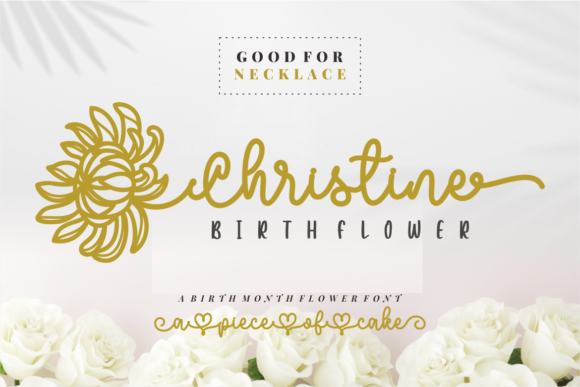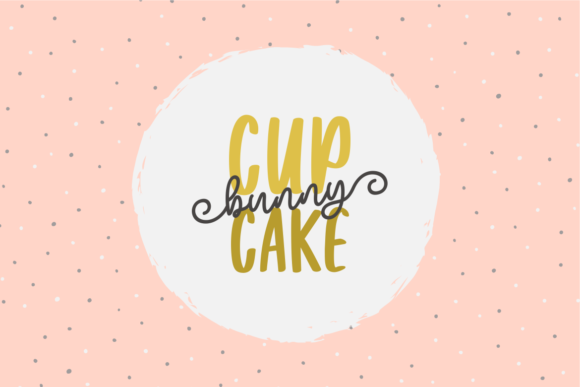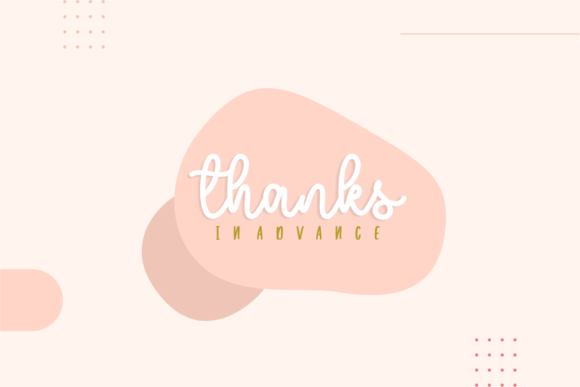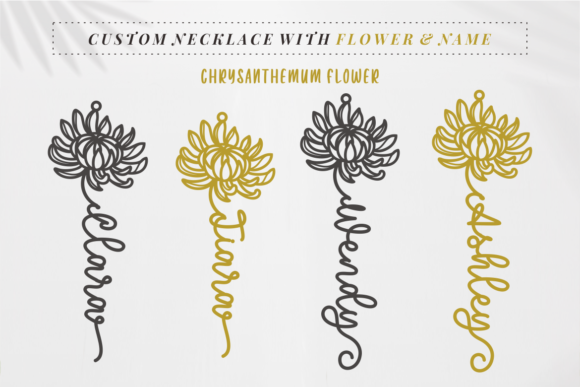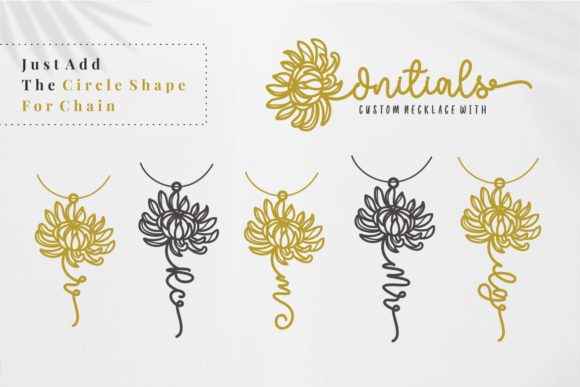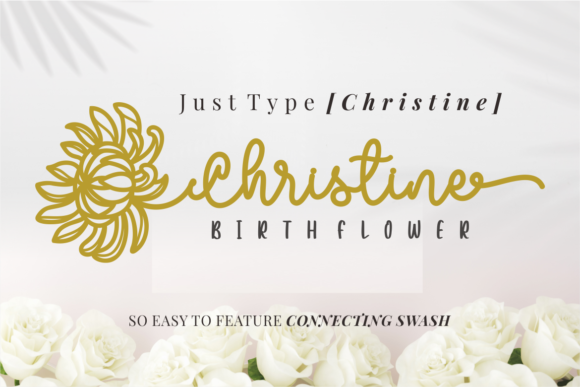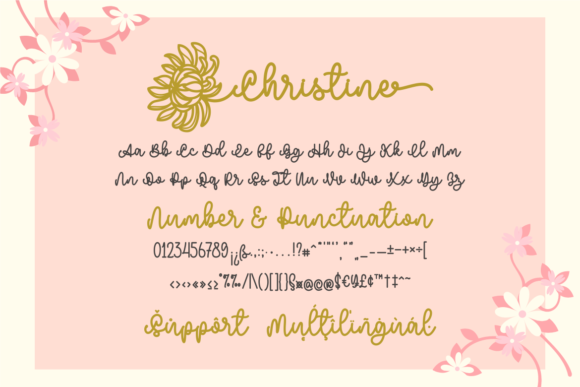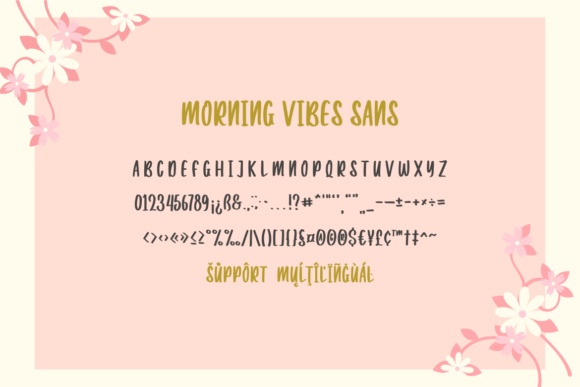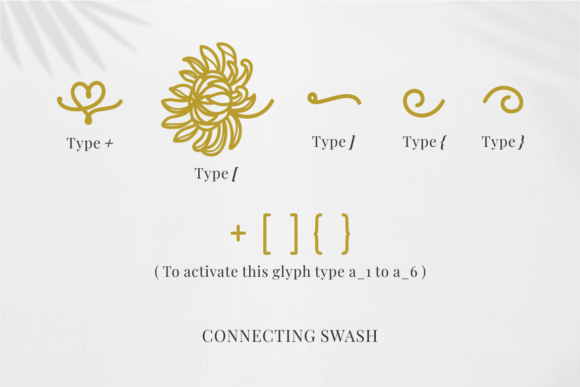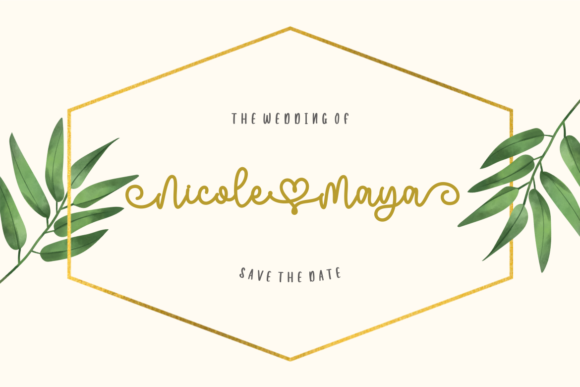
Christine Birth Flower Duo Font
About Christine Birth Flower Duo Font
“Christine Birth Flower Duo” offers a vintage-inspired combination of a script and sans serif font, expertly crafted with a dash of elegance. This font duo has been meticulously designed to capture a sense of timeless beauty. Whether you’re seeking fonts for social media posts on platforms like Instagram or elegant calligraphy scripts for your DIY projects, this font has the potential to elevate any creative concept into a genuine work of art.
The charm of “Christine Birth Flower Duo” lies in its ability to seamlessly blend a vintage aesthetic with a touch of contemporary elegance. The script font evokes the artistry of calligraphy, while the sans serif font brings a modern, clean aspect to the mix. This synergy between the two fonts creates a visually captivating contrast that can add depth and character to a wide array of design projects.
This font is an ideal choice for diverse applications. From crafting engaging social media content to enhancing DIY projects, its versatility is apparent. The duo’s ability to lend an air of sophistication and timelessness to your designs is especially well-suited for projects that require a touch of refined creativity.
Ultimately, “Christine Birth Flower Duo” holds the potential to transform your creative ideas into artistic masterpieces. Its vintage flair, combined with the touch of elegance, makes it a valuable tool for designers, creators, and artists who aim to infuse their projects with a sense of enduring beauty and style.